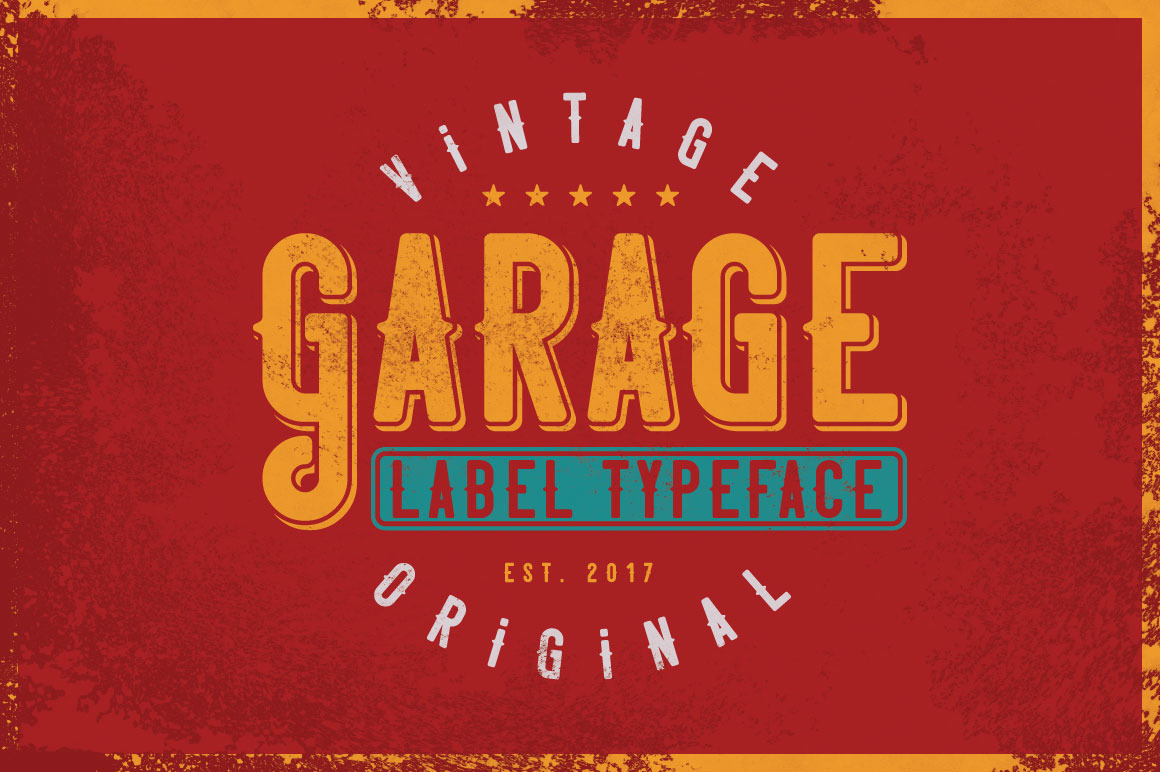
Garage typeface
Introducing a vintage look label typeface named "Garage". It's made in strong and vintage label style. Typeface is good viewed on any labels design.
- 3 fonts in complect with special effects, plus aged version
- You can mix color of base font and shadow effect (look at 4-th screenshot)